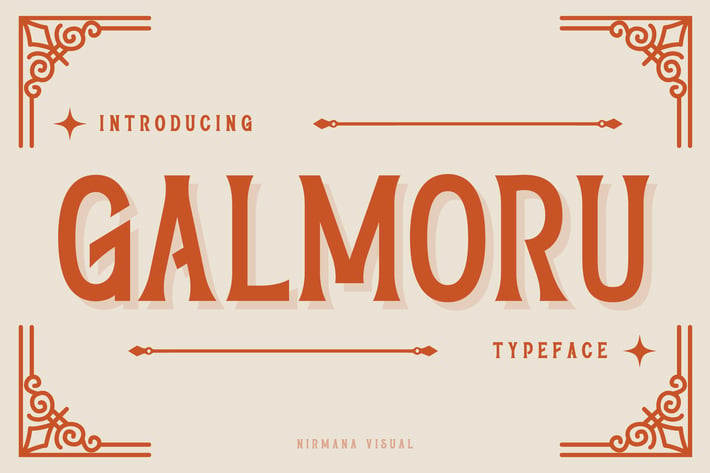
Galmoru - Vintage Logo Font
Galmoru, contemporary of Sans serif font,
Galmoru offers beautiful typographic harmony for a diversity of design projects, including logos & branding, social media posts, advertisements & product designs.